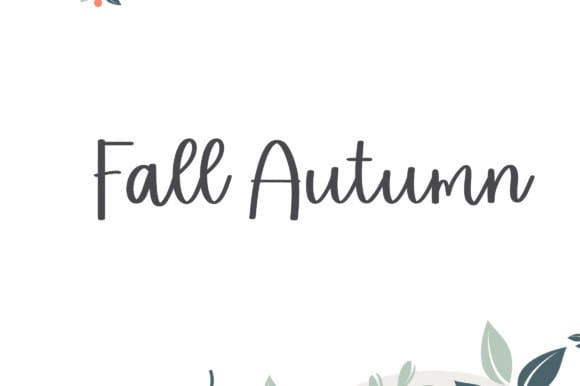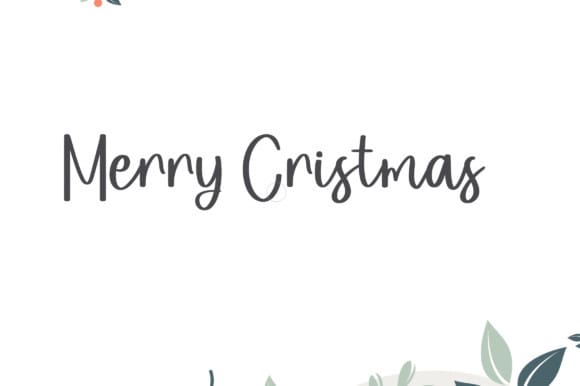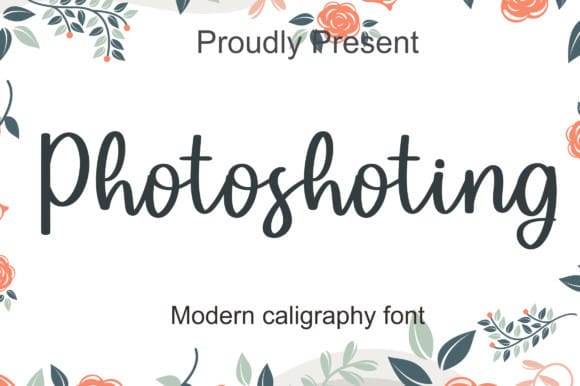
Photoshoting Script Font
Photoshoting Script Font is a modern and chubby handwritten font that will impress you with its charming character! Use it to create outstanding wedding designs, magazine covers, storybooks, invitations, etc.